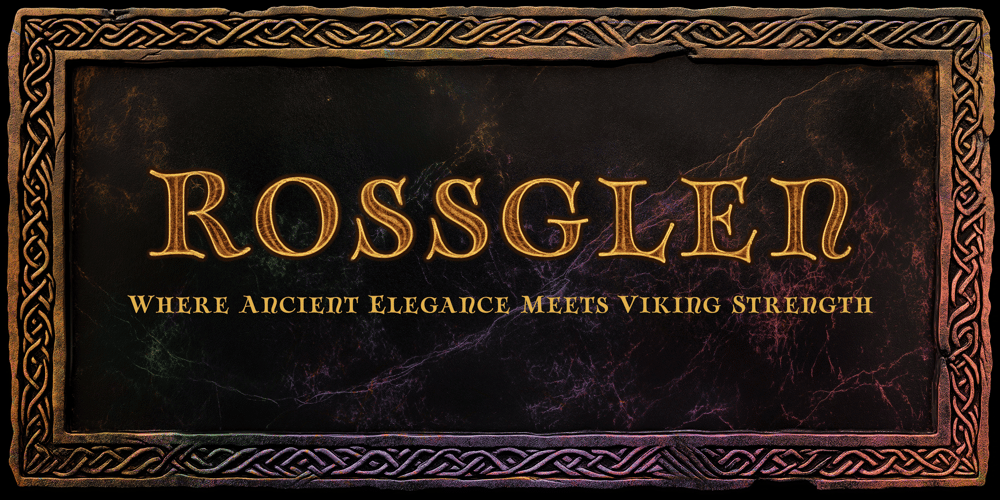
Rossglen Font Family was designed by Jeremy Dooley and published by insigne. Rossglen contains 8 styles and family package options. Embark on a typographic odyssey with Rossglen – where ancient uncial grace meets Viking ferocity. This isn’t just a font; it’s a portal to a world where Ireland’s misty hills echo with battle cries and longships slice through northern seas.Imagine your words etched in runes that flow like Celtic knotwork, yet strike with the precision of a Norse axe. Rossglen’s characters dance on the edge between fluid manuscript curves and the stark geometry of weathered runestones. It’s the perfect weapon for designers ready to conquer titles, forge unforgettable logos, or craft headers that command attention.But Rossglen isn’t just about raw power. Its range of weights lets you whisper legends or roar sagas. Alternate characters and ligatures are your secret arsenal, infusing designs with an air of ancient mystery. And with robust multilingual support, your message will resonate in any tongue, from Old Norse to Modern English.Who is Rossglen for? The bold. The visionaries. The creators who hear the call of distant shores and forgotten kingdoms. Whether you’re breathing life into a fantasy epic, branding the next cult favorite brewery, or titling a game destined for Valhalla – Rossglen is your rune-carved key.Don’t just choose a font. Unleash a legacy. With Rossglen, every character tells a story, every word becomes legend. Are you ready to write yours?